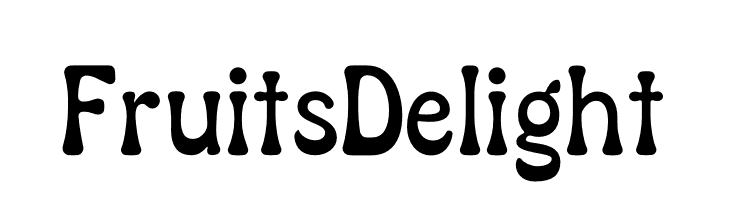
( Fonts by PiPi Creative )
A bold, playful handwritten font with rounded, flowing characters.
( Fonts by Jimtype Studio )
A bold, retro-inspired font with rounded, playful letterforms.
( Fonts by Storytype Studio )
A playful, rounded font with a hand-drawn, whimsical style.
( Fonts by Khurasan )
A playful, bold font with rounded, hand-drawn characters.
A playful, bold font with rounded, thick strokes and a whimsical touch.
A bold, high-contrast serif font with geometric and decorative elements.
A cursive, handwritten font with elegant, flowing strokes.
A dynamic and elegant handwritten font with fluid, connected strokes.
( Fonts by Balpirick Studio )
A playful handwritten font with smooth, flowing lines and consistent stroke width.
( Fonts by PutraCetol Studio )
A playful, vegetable-themed decorative font with bold, quirky characters.